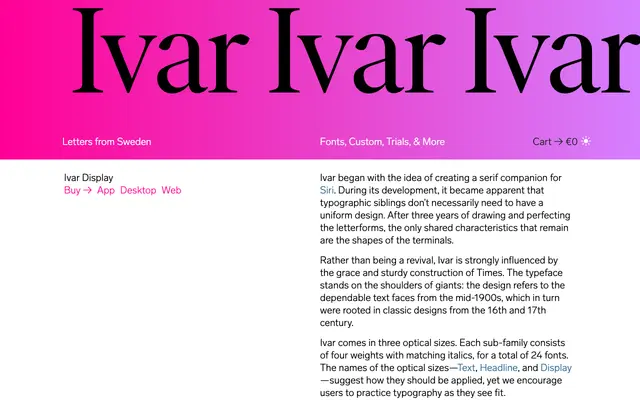
Ivar Display
A transitional serif by Göran Söderström in four optical sizes, drawing on Times and the sturdy mid-20th century text faces that preceded it.
Designed by Göran Söderström and released in 2017, Ivar takes its cues from Times and the dependable text faces of the mid-1900s, themselves rooted in classical designs from the 16th and 17th centuries. The family spans four optical sizes — Text, Headline, Display and the high-contrast Fine, added in 2020 — each with four weights and matching italics, giving 24 fonts in the core range. A condensed variant and related designs Ivar Nostalgi and Ivar Soft extend the broader Ivar system.
Ivar is explicitly influenced by Times and the dependable text faces of the mid-1900s, which in turn draw on 16th and 17th century classical designs, placing it firmly in the transitional serif tradition. The high-contrast Display optical size reinforces this classification.